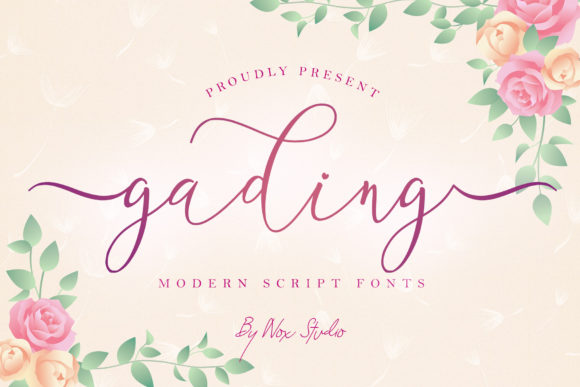
Step into the realm of elegance with Gading Font, a script font that embodies grace and charm. Its relaxed theme invites you to unwind and let your creativity flow. Experience the beauty of well-balanced characters that dance harmoniously across your designs.
Gading's meticulously crafted glyphs and swashes, accessible with ease through PUA encoding, unleash a world of endless possibilities. Capture the essence of sophistication in your logos, branding, and social media designs. Let Gading's whimsical nature add a touch of magic to your invitations, cards, and posters.
With Gading by your side, you'll find yourself immersed in a symphony of aesthetics. Its versatility allows it to blend seamlessly with a diverse range of projects, from the classic to the contemporary. Unleash your imagination and let Gading's enchanting curves take center stage.
Gading's online signature capabilities make it the perfect choice for adding a personal touch to your digital correspondence. Create an unforgettable impression with emails, documents, and social media posts that showcase your unique style.
Embrace the allure of Gading and elevate your designs to new heights. Its captivating presence will leave a lasting impression on your audience, whether in print or on screen. Step into the world of Gading and experience the beauty of timeless elegance.